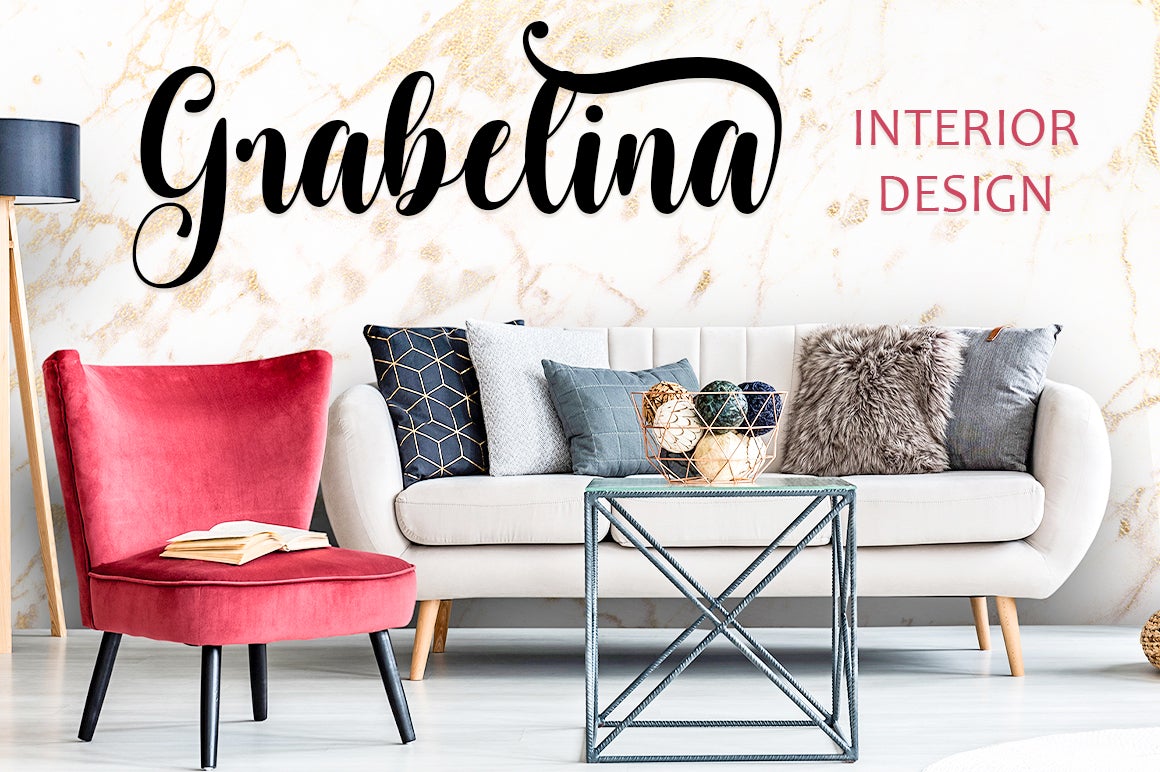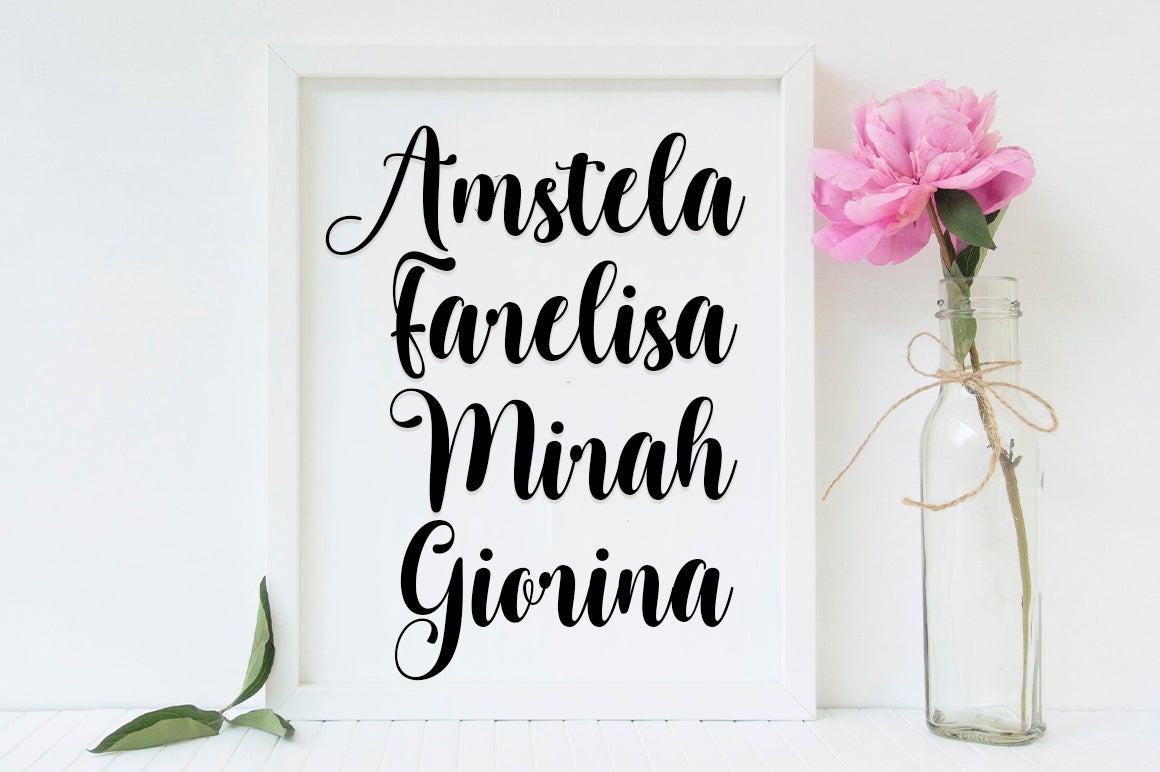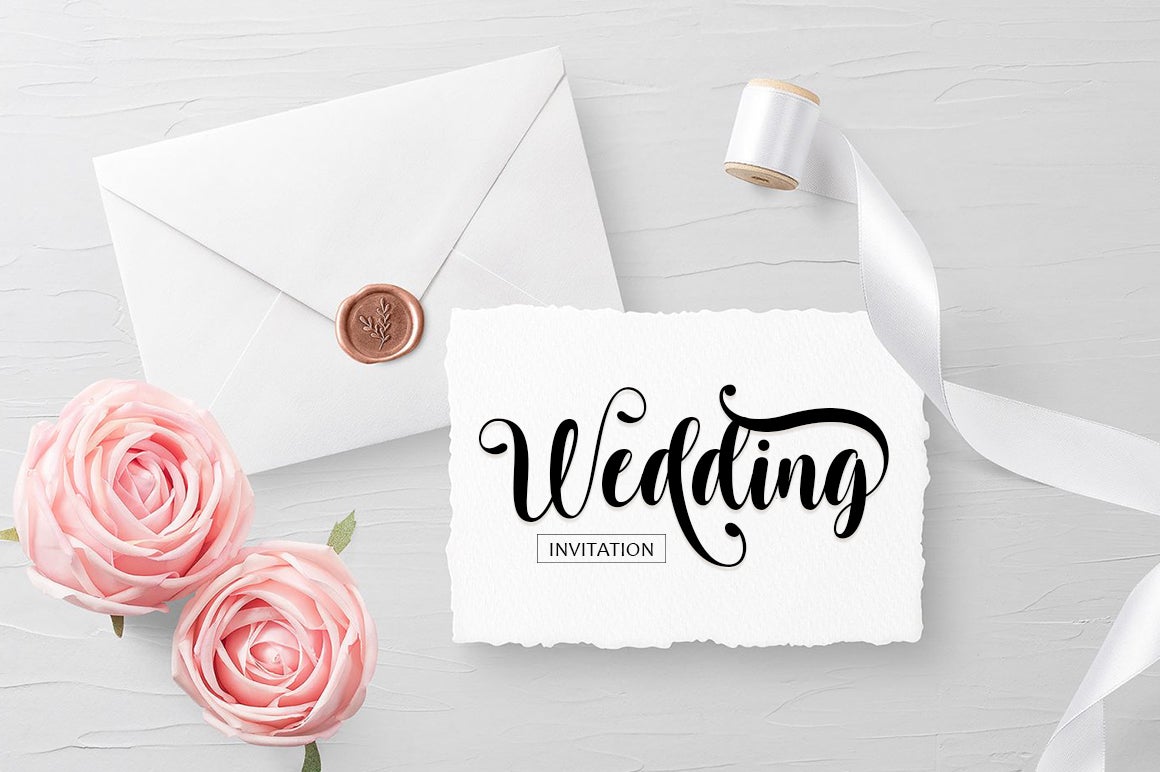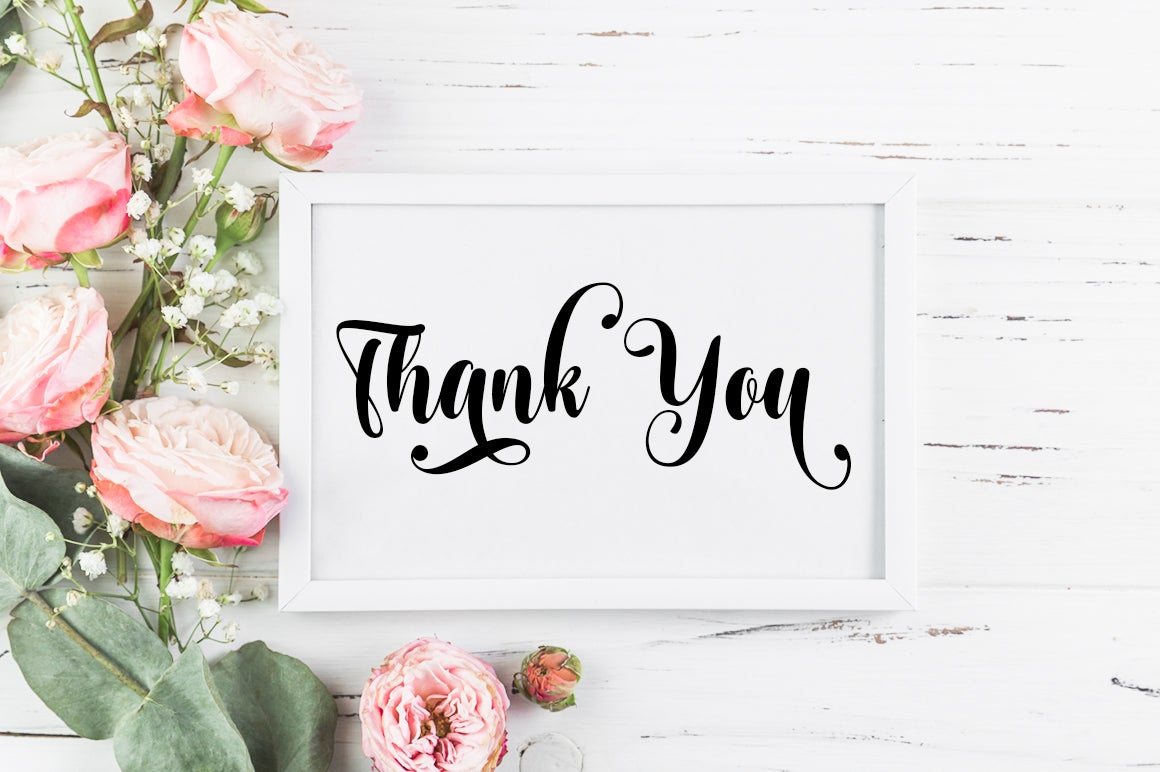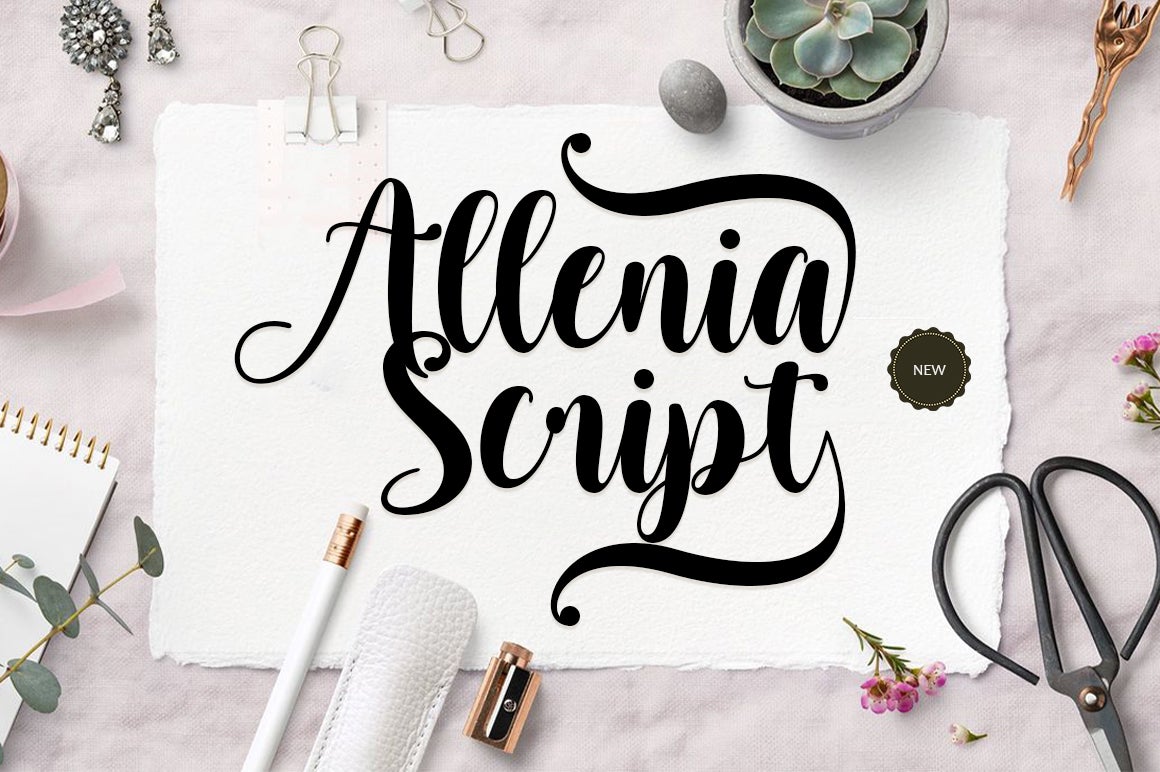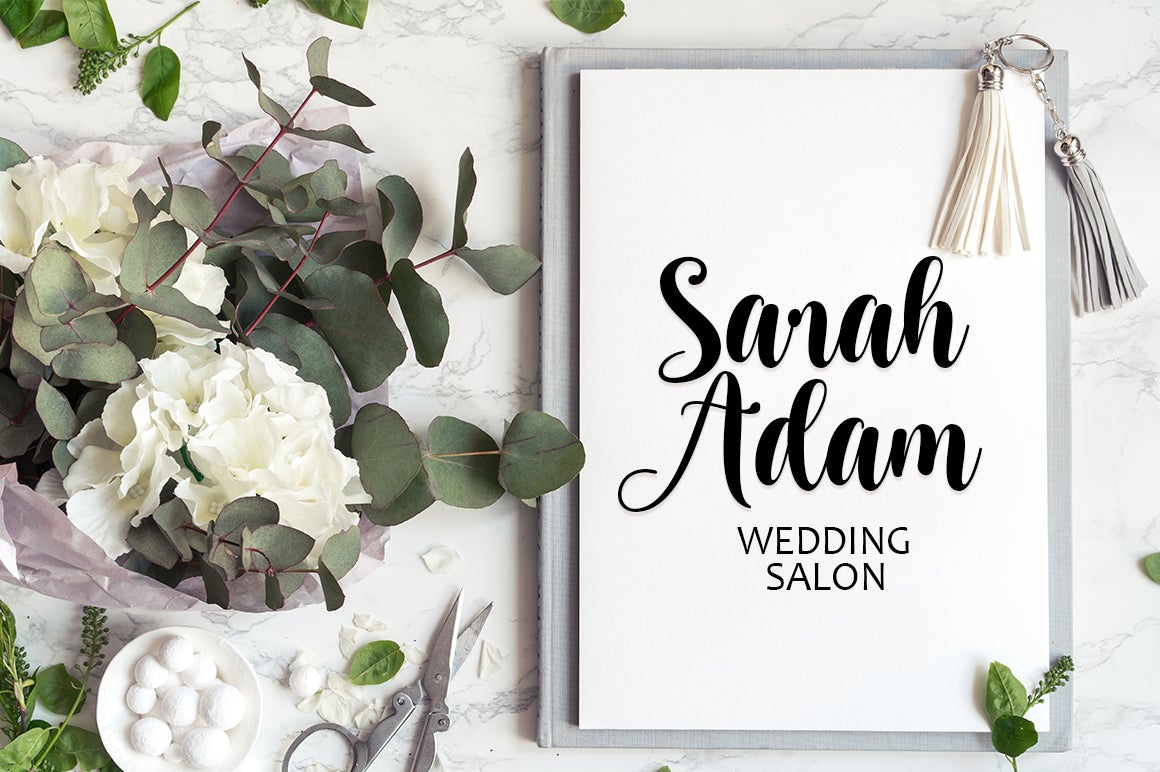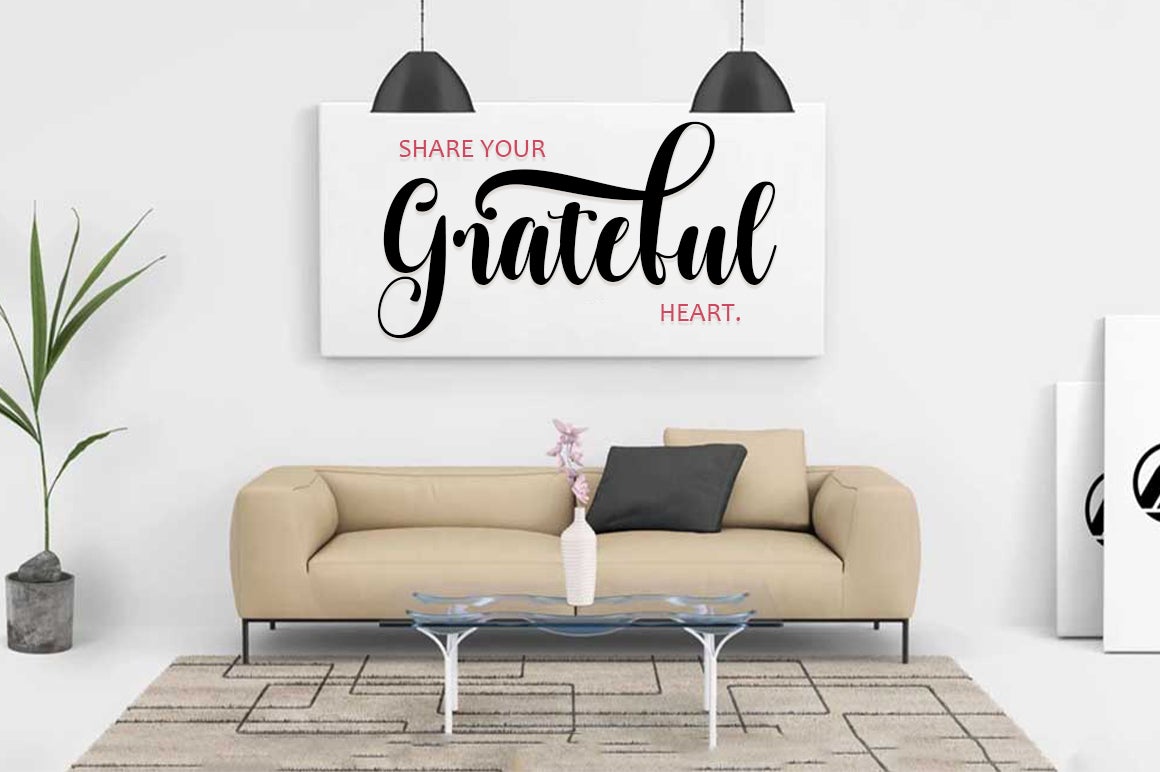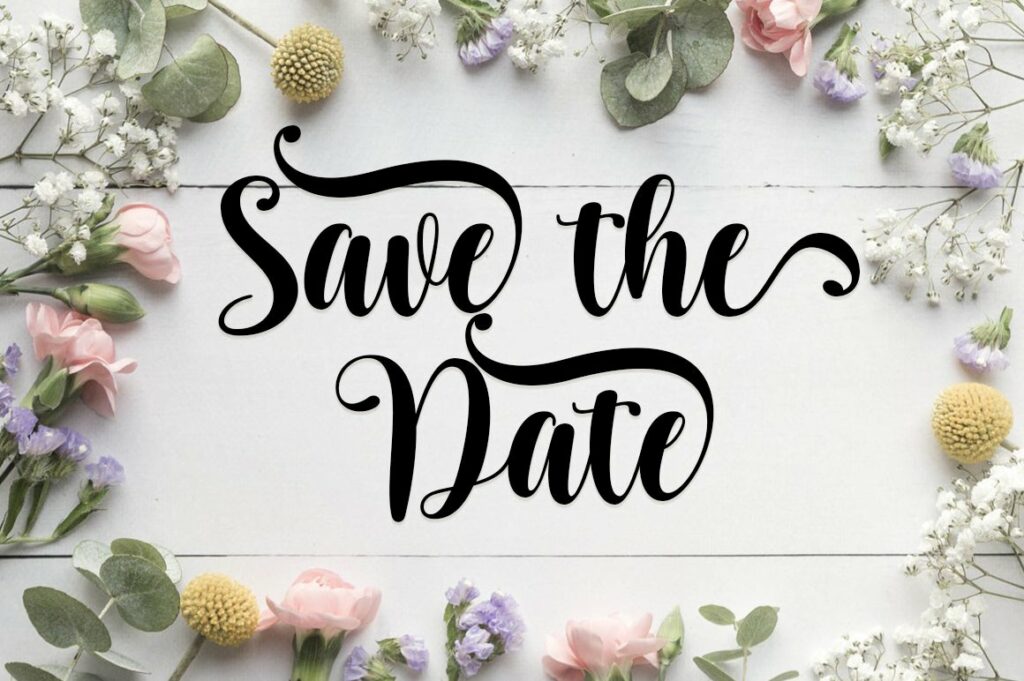
Allenia Script
About Allenia Script
Allenia Script is a romantic and sweet Script typeface with characters dancing along the baseline. This will add a spark of luxury to any design project you want to create! This font is PUA encoded which means you can access all the amazing glyphs and ligatures with ease!